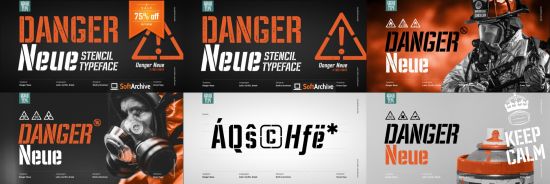
Danger Neue is the latest version of the popular Danger font. In this version, the contours of the
letters are finalized and improved. Contains an extended set of glyphs and open type features.